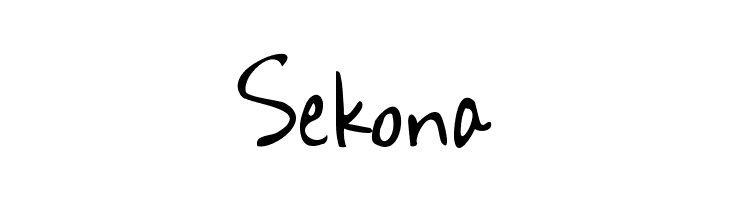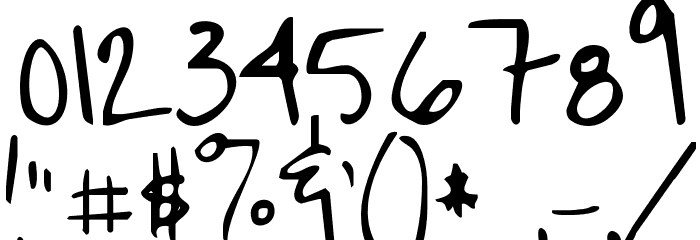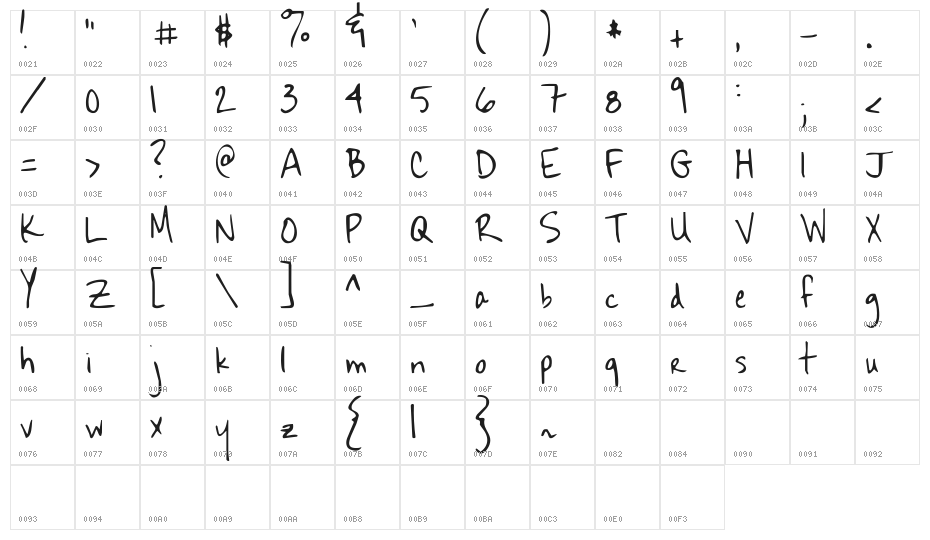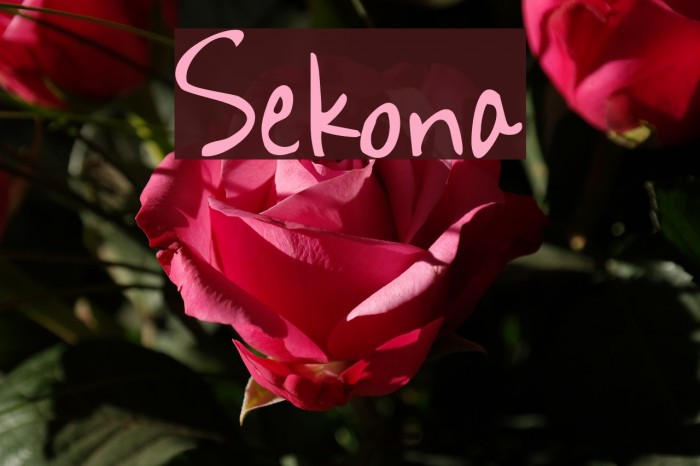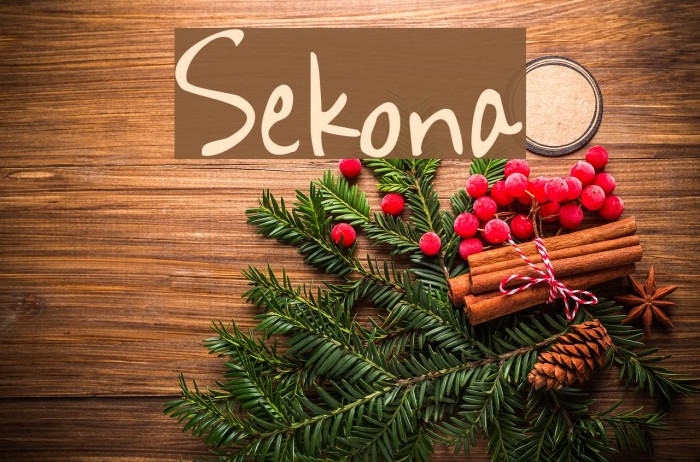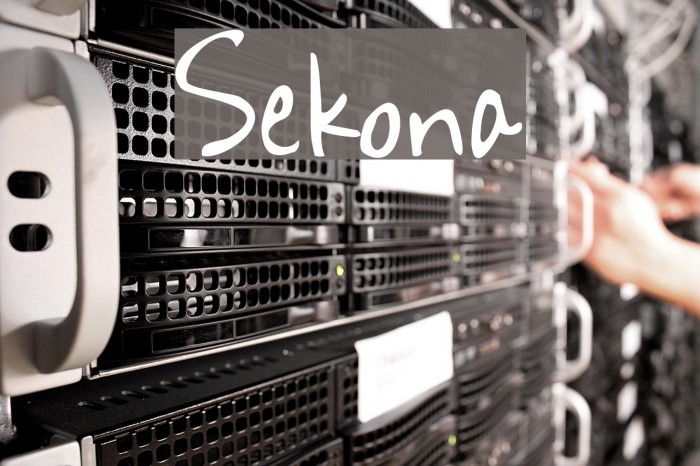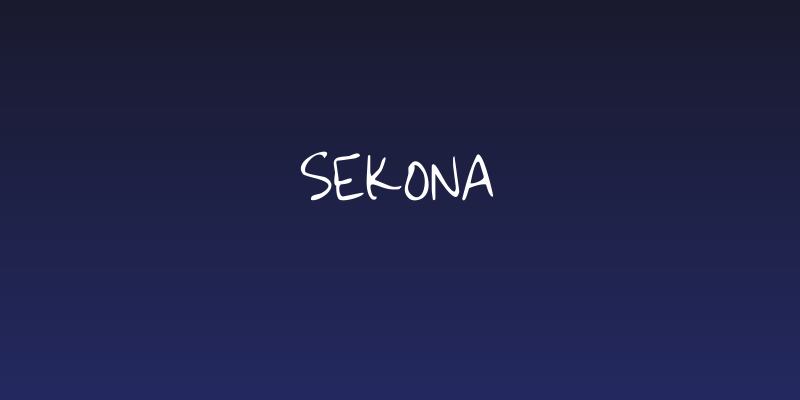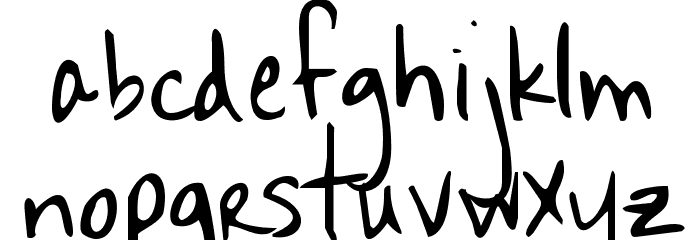
Sekona Font
Sekona Description
This font features a playful and casual handwritten style, characterized by its irregular and dynamic strokes. The letters exhibit a natural flow, with varying heights and angles that give it a lively and informal appearance. The uppercase and lowercase letters are distinct yet harmonious, maintaining a consistent aesthetic throughout. Numbers and special characters are crafted with the same whimsical touch, making them blend seamlessly with the alphabet. The overall design is approachable and friendly, suitable for projects that aim to convey a personal or creative touch.